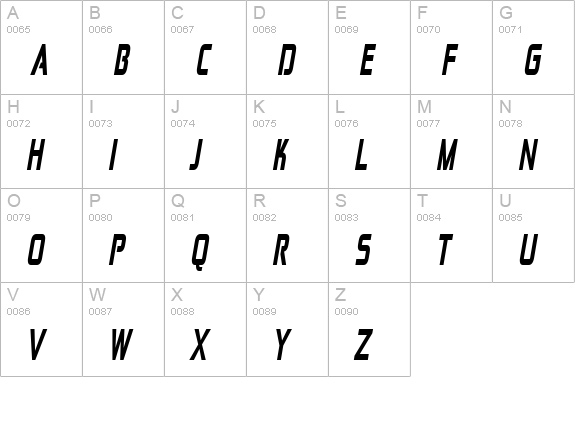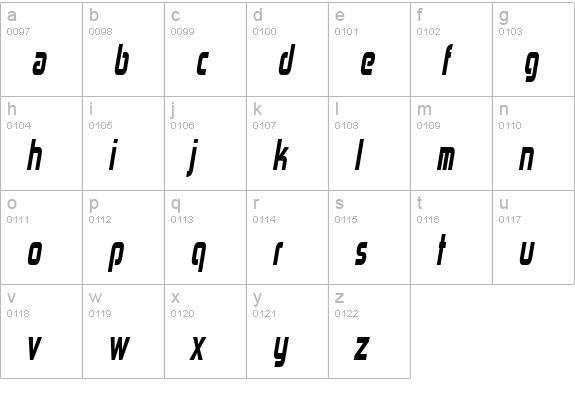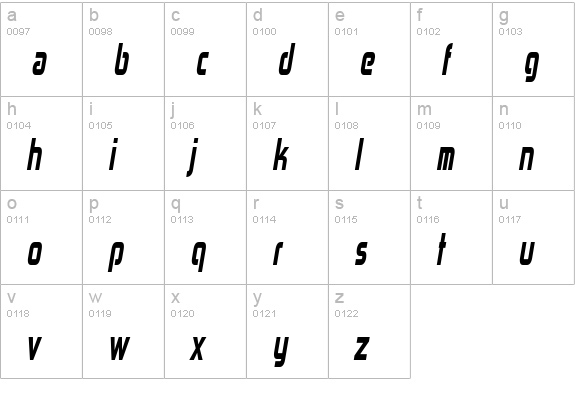
Zekton CdHv Italic is a distinctive, italic variant in the Zekton typeface family \xE2\x80\x94 well suited to design and typography projects.
Zekton CdHv Italic is a striking and modern font that exudes confidence and style. Its sleek and futuristic design makes it perfect for projects that require a bold statement. The italicized version adds a touch of elegance and flair, making it ideal for titles, headers, and branding materials. And the best part? Zekton CdHv Italic is completely free to download at FontsMarket.com. This means you can add this eye-catching font to your collection without any cost. Whether you're a designer looking to spice up your projects or a content creator in need of a fresh look, Zekton CdHv Italic is the perfect choice for adding a touch of sophistication to your work. Download it today and take your designs to the next level!